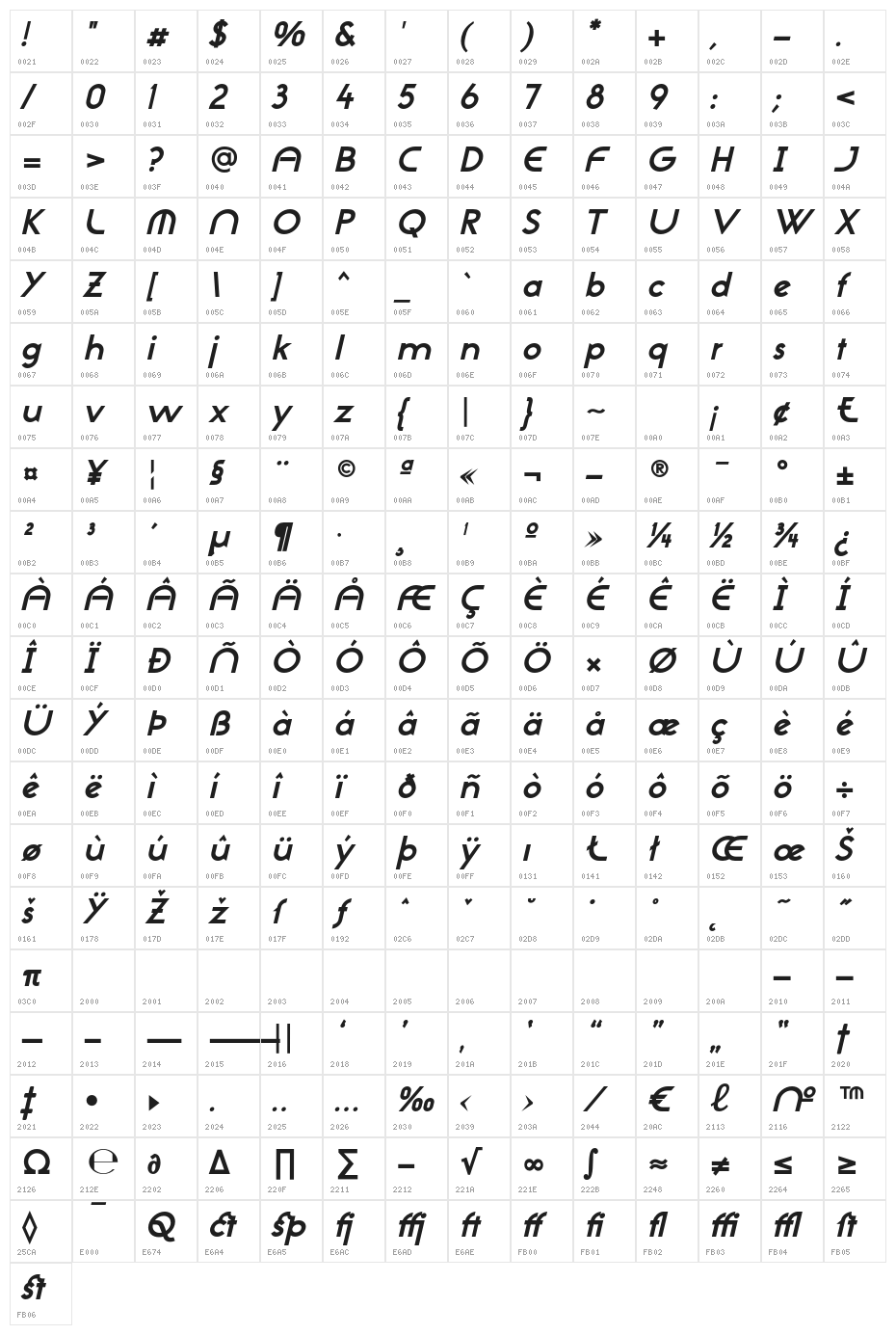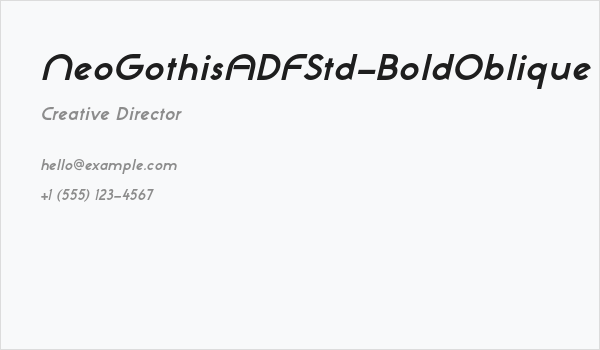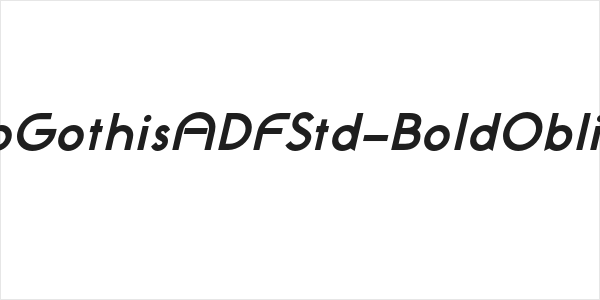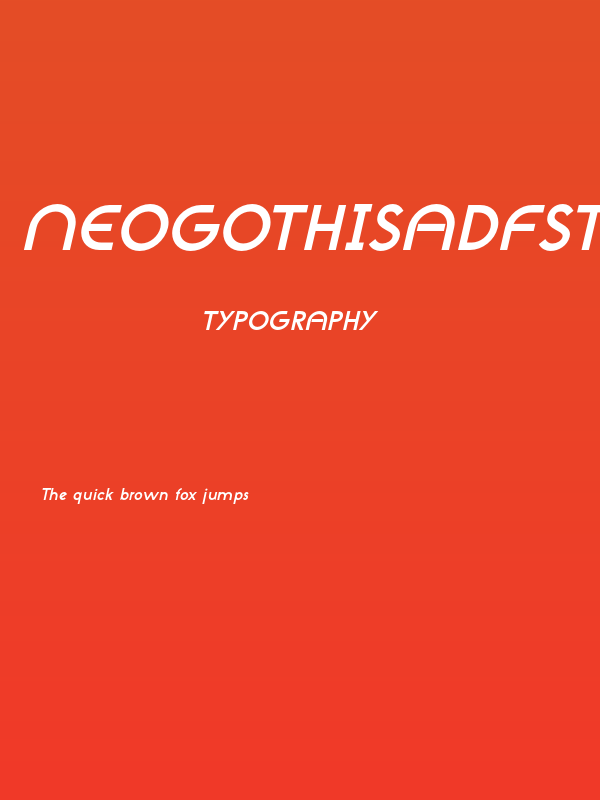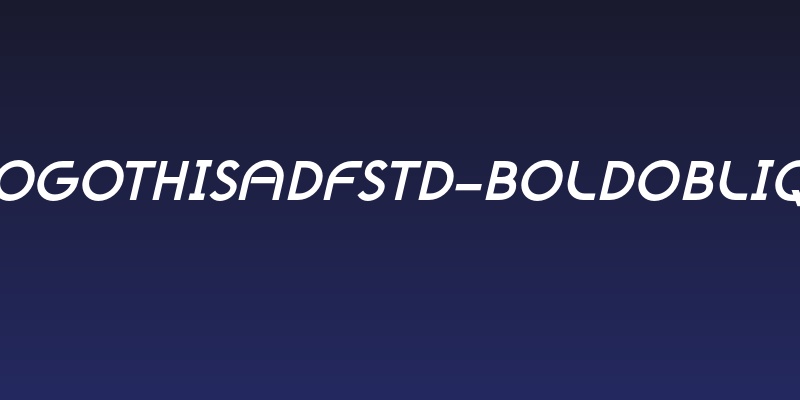
NeoGothisADFStd-BoldOblique Font
NeoGothisADFStd-BoldOblique Description
This font features a bold and oblique style, characterized by its strong, slanted letterforms that convey a sense of movement and dynamism. The uppercase and lowercase letters are designed with a consistent stroke width, providing a uniform appearance across the typeface. The numerals and special characters maintain the same boldness, ensuring readability and visual impact. The overall design is modern and sleek, making it suitable for various applications where a contemporary and assertive look is desired.
| Proposed Projects | Ideal for branding, advertising, and editorial design where a bold statement is needed. |